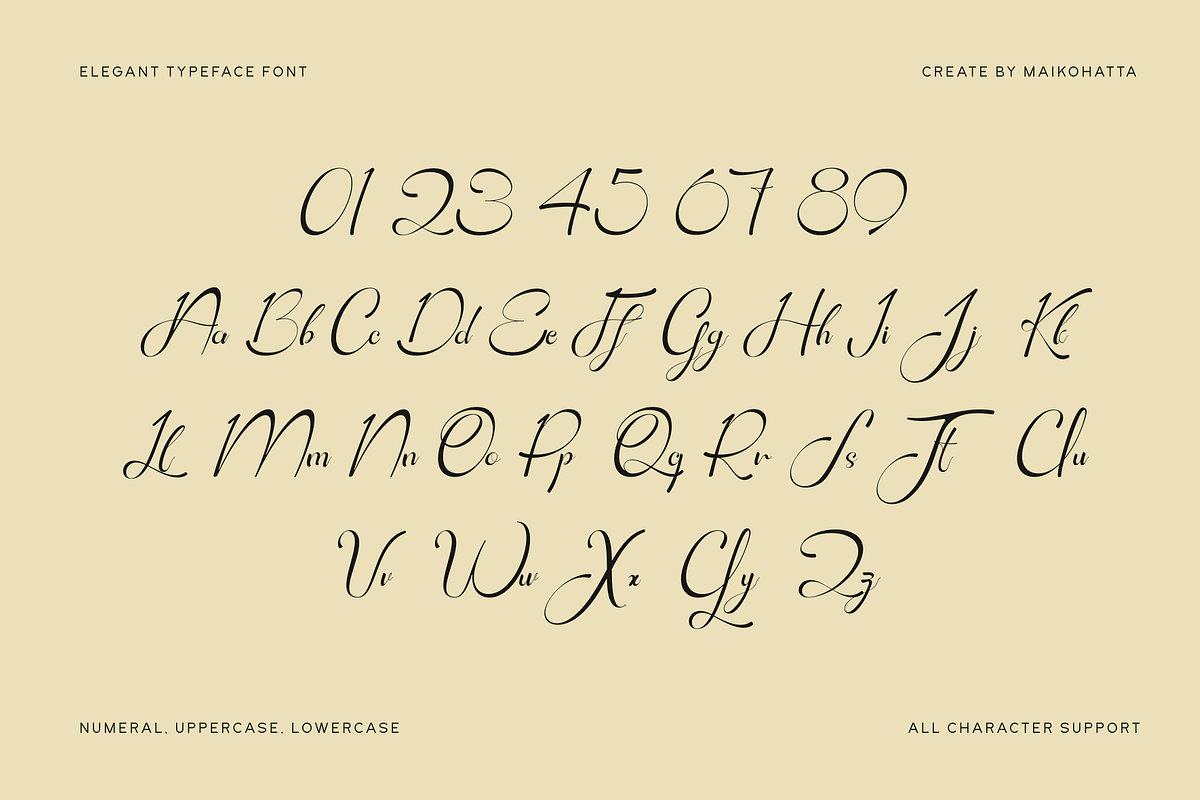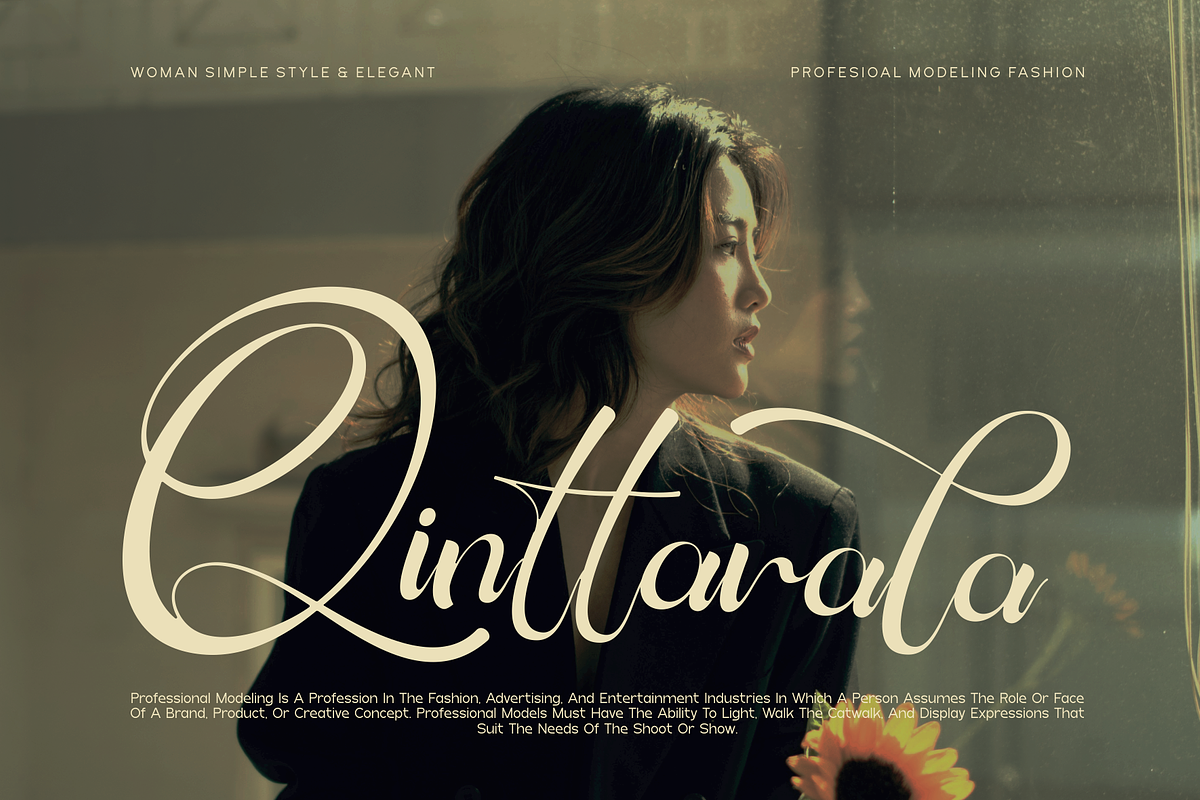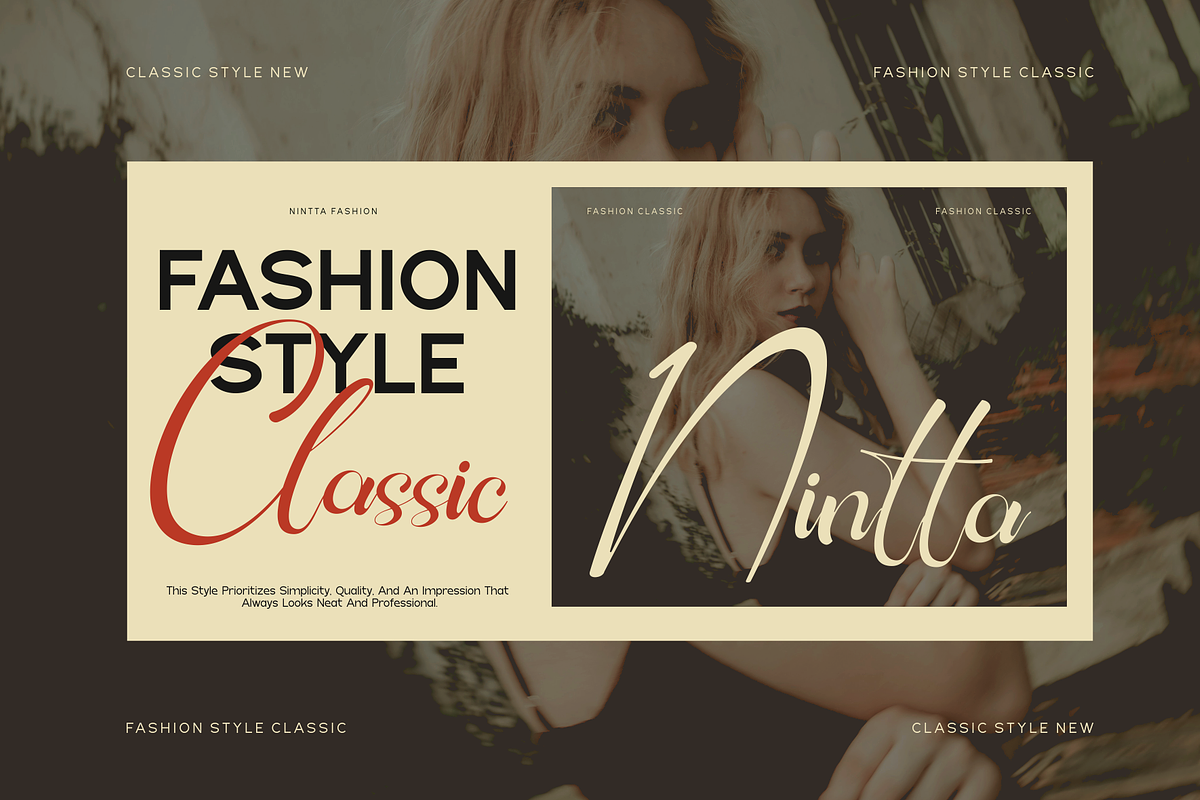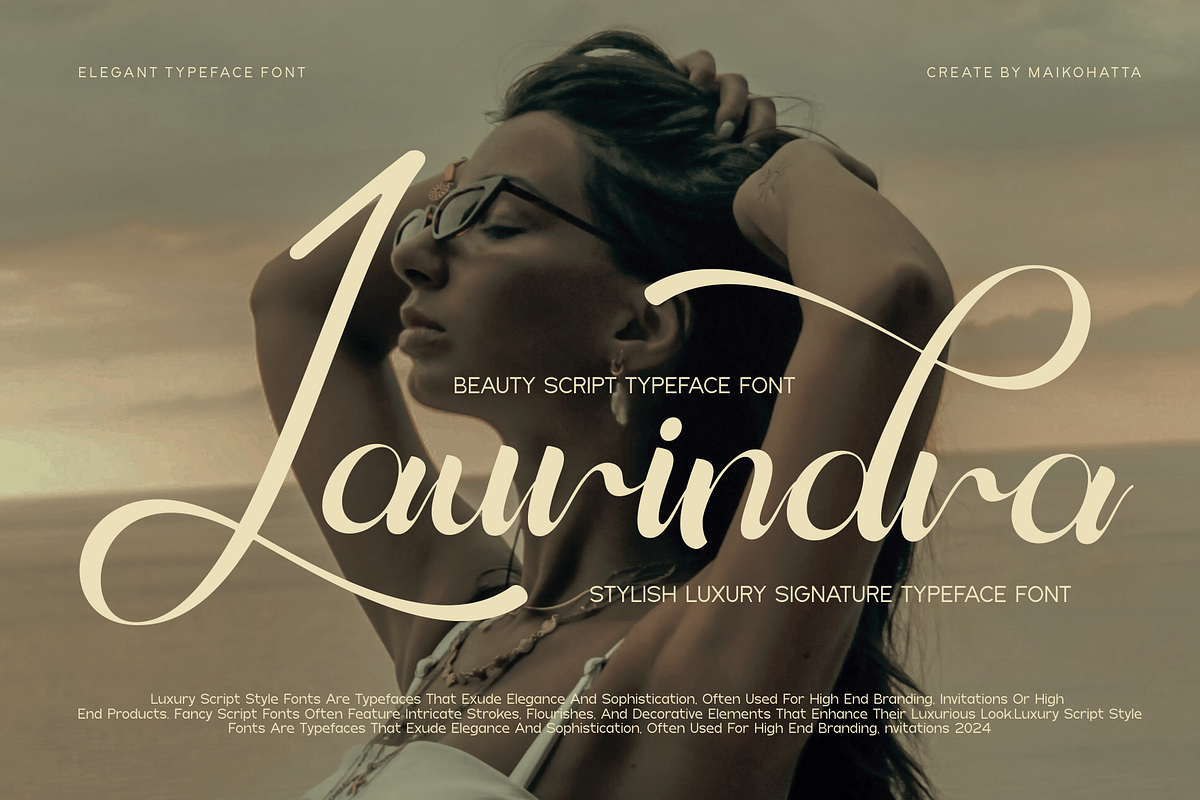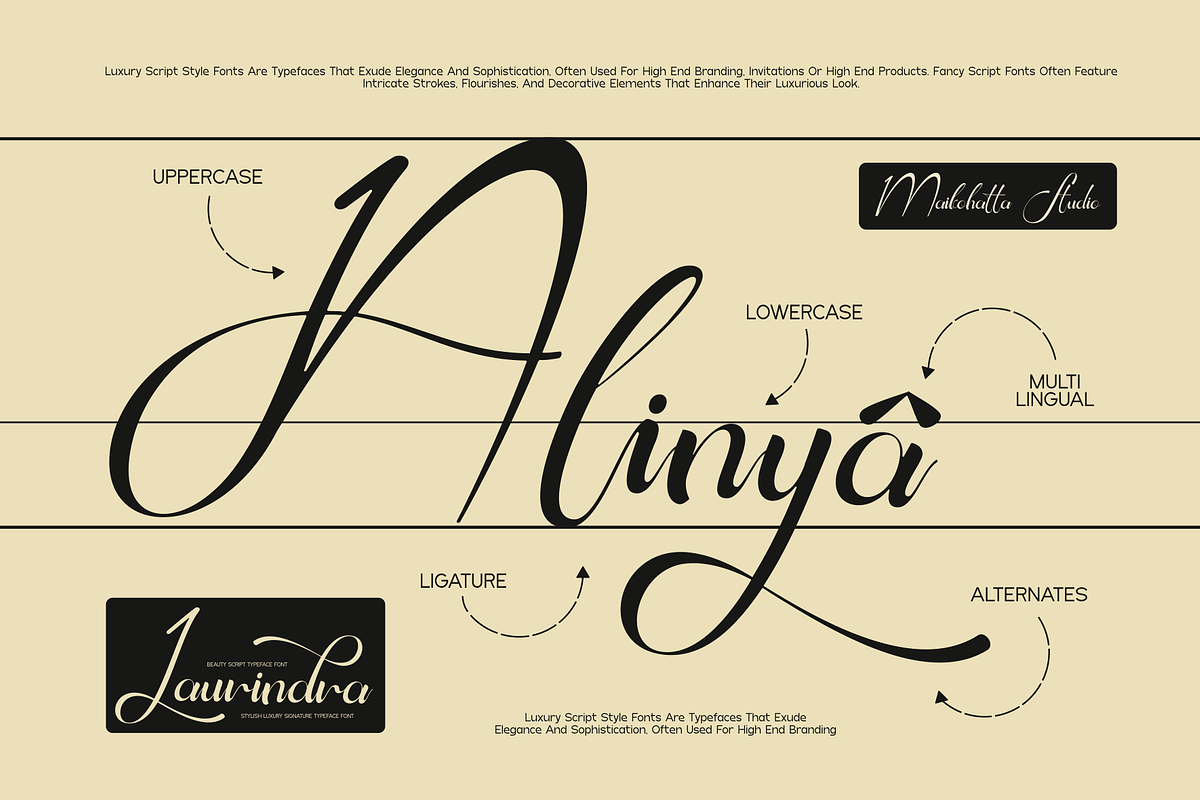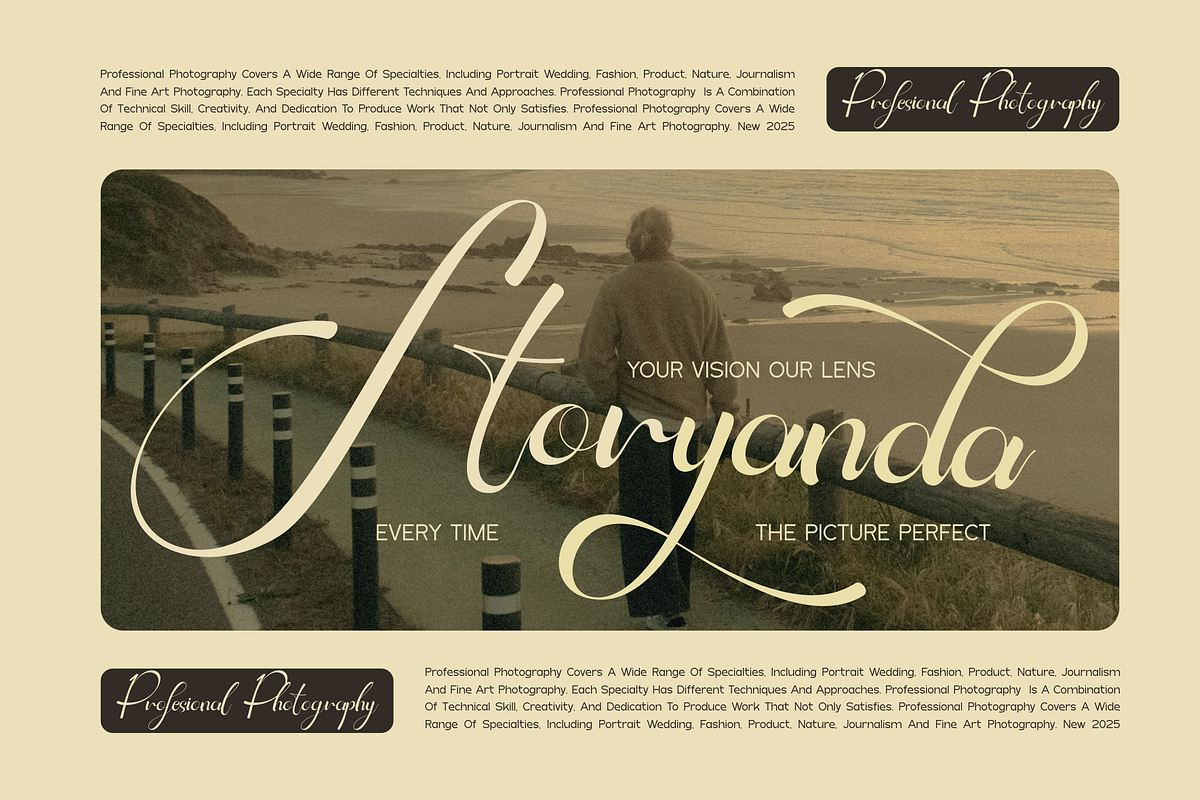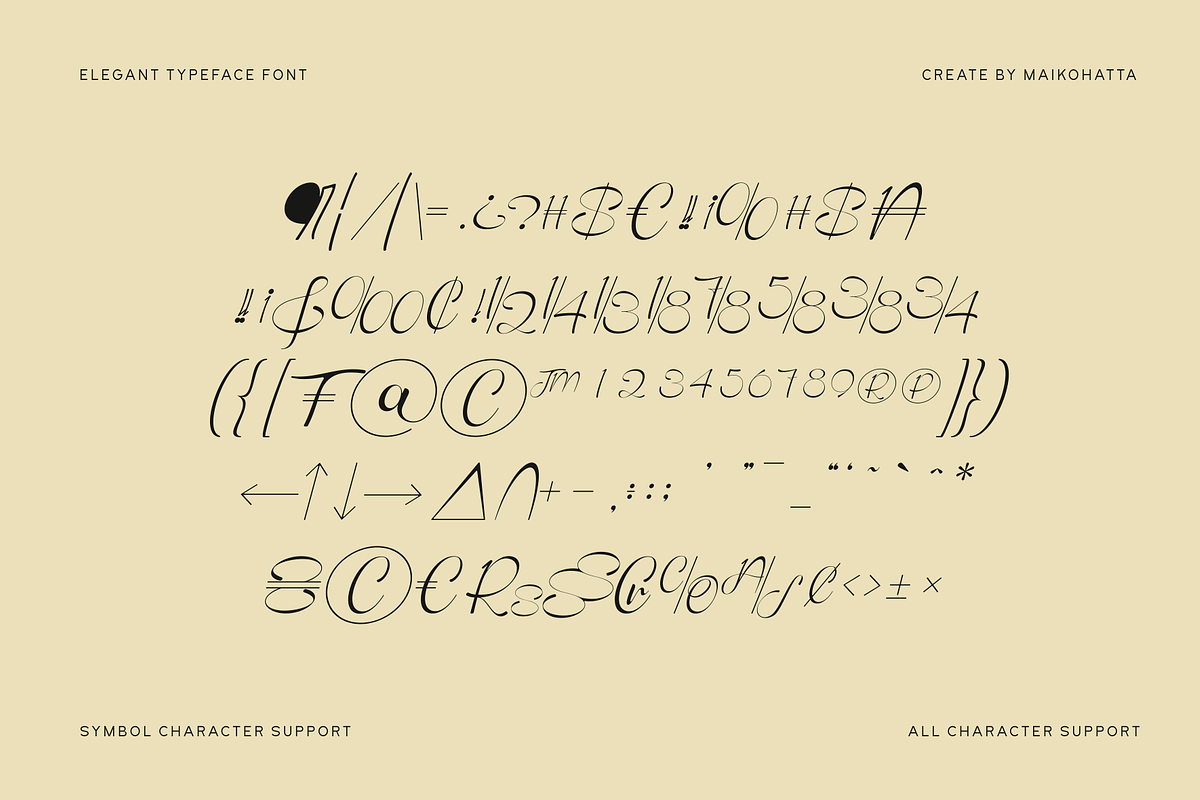
Laurindra - Luxury Script Font
Introducing our new product Laurindra - Luxury Script Font
Laurindra - is a very flexible choice and can be used in a variety of design contexts. Its ability to provide a clean, professional, contemporary look and its simplicity and visual appeal make this font good for use in the world of graphic design and modern typography.